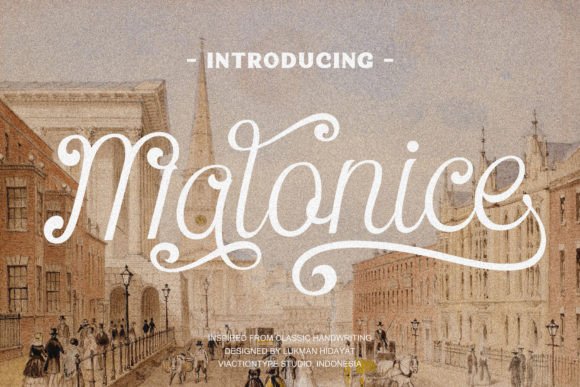
Introducing Malonice Script: The Epitome of Elegance and Luxury in Modern App Design
Step into the world of Malonice Script, a breathtaking script font meticulously crafted to capture the allure of classic handwriting, exuding an aura of elegance and luxury that is guaranteed to elevate your modern app design to new heights. Immerse yourself in the beauty of its meticulously crafted curves and flourishes, reminiscent of a skilled calligrapher's hand, evoking a sense of timeless sophistication that will leave your users captivated.
Designed with the utmost attention to detail, Malonice Script boasts a comprehensive array of alternate characters and standard ligatures, empowering you to unleash your creativity and craft designs that radiate individuality and charm. Whether you seek to create eye-catching logos, captivating headlines, or stunning website elements, Malonice Script stands as your steadfast companion, effortlessly elevating your designs to the pinnacle of sophistication.